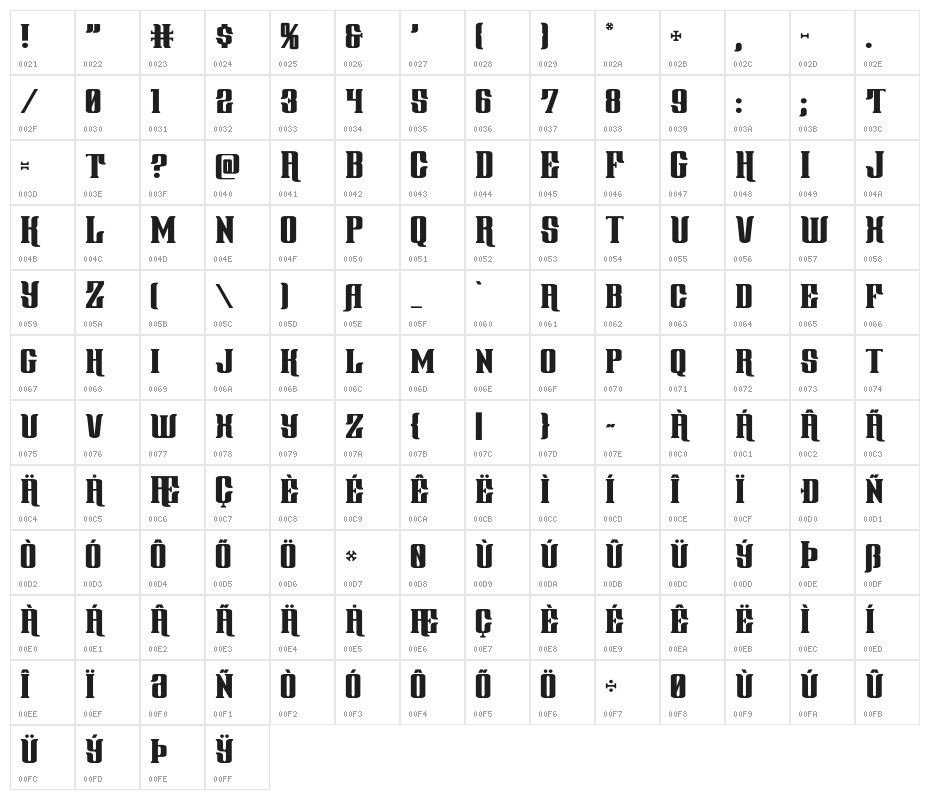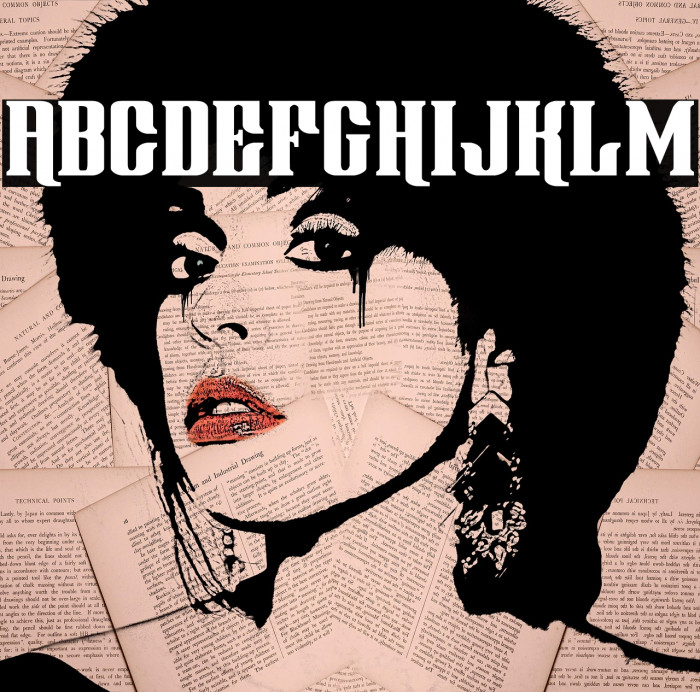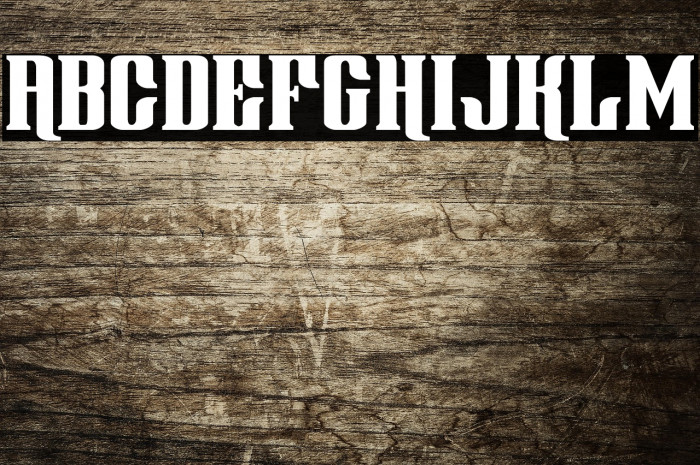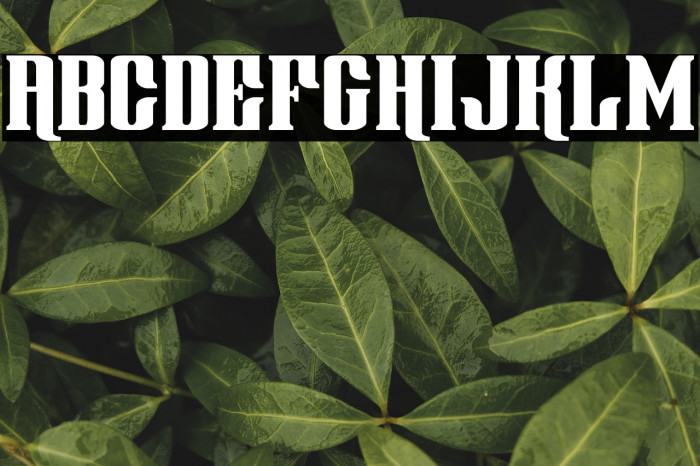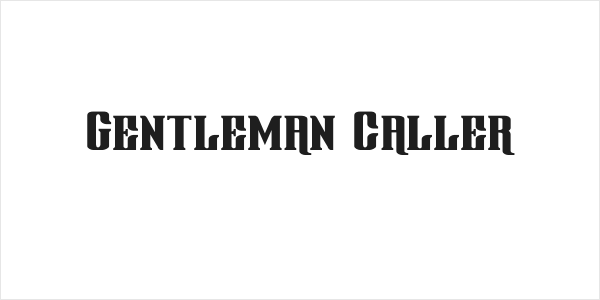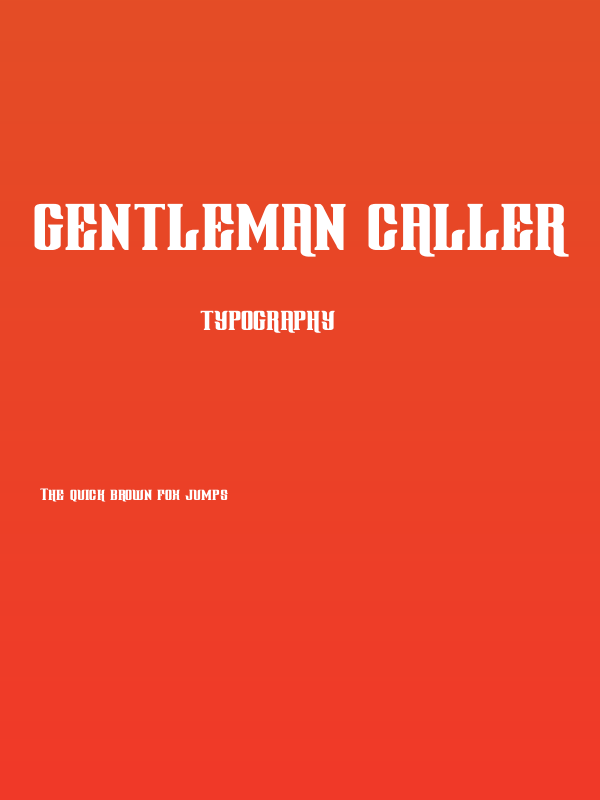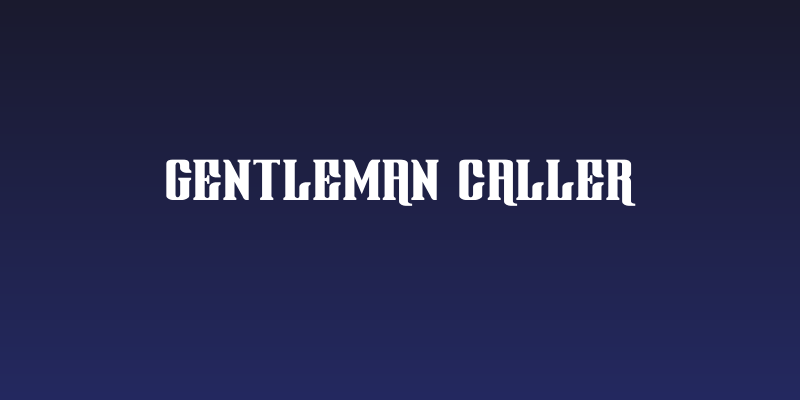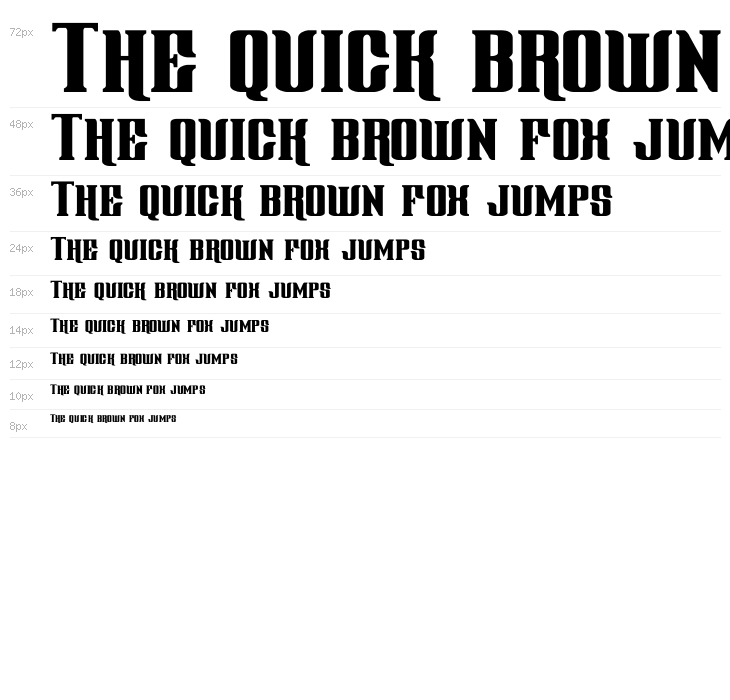
Gentleman Caller Font
Gentleman Caller Description
This font features a bold and striking design with a strong presence, characterized by its thick, block-like serifs and angular edges. The uppercase letters are tall and imposing, while the lowercase letters maintain a consistent weight and style, creating a cohesive look. The numbers and special characters follow the same bold and structured design, ensuring uniformity across all characters. The font's overall appearance is reminiscent of vintage or Western-style typography, making it ideal for projects that require a dramatic and eye-catching typeface.
| Proposed Projects | Ideal for posters, logos, branding, and any design work that requires a bold, vintage aesthetic. |